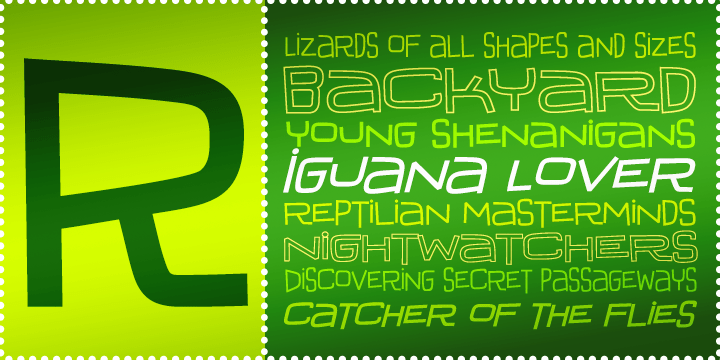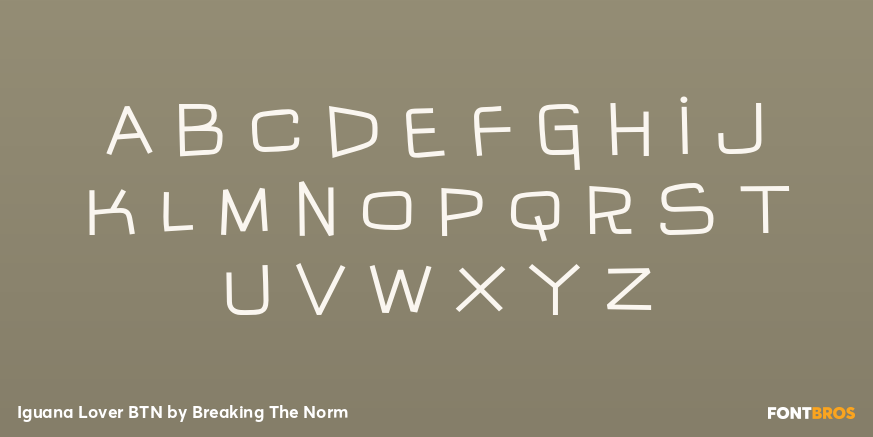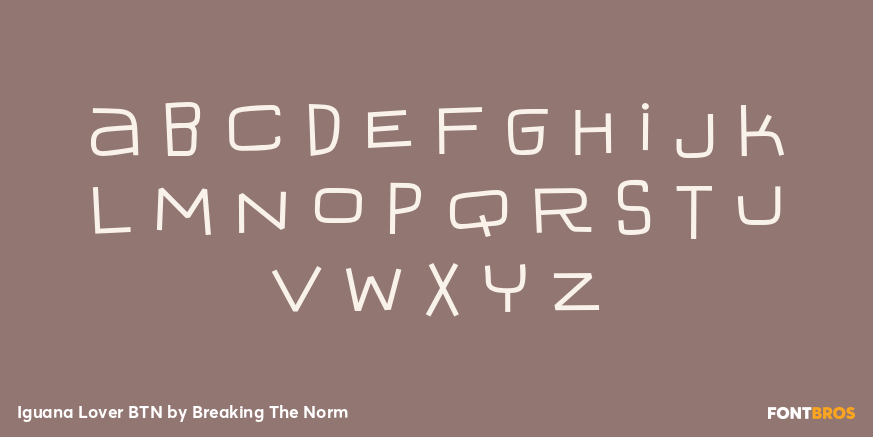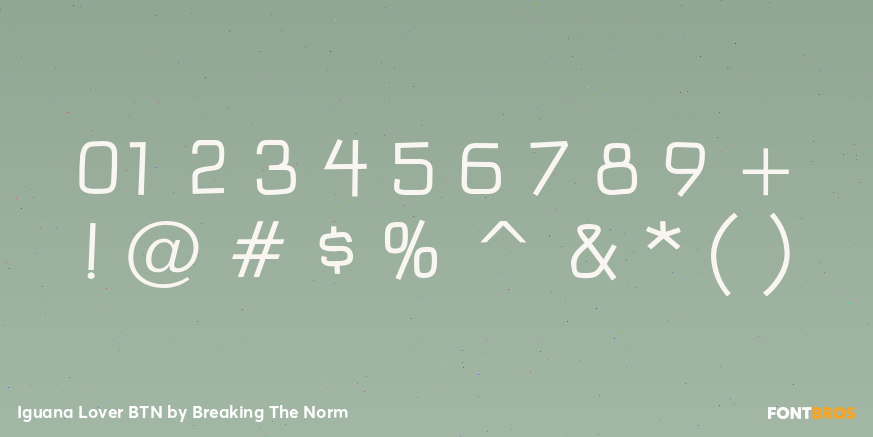
Iguana Lover BTN
Font Family by Breaking The Norm
Iguana Lover BTN is an offbeat retro display family inspired by the lettering from Night of the Iguana movie posters. It takes that unusual vintage flavor and expands it into a broader typographic system with narrow, standard, and wide-leaning styles that give designers more range to play with. The result is a quirky, character-rich family that feels both nostalgic and lively, making it well suited for posters, packaging, branding, editorial design, book covers, and playful headline work. With upright and oblique styles plus wide and condensed variations, Iguana Lover BTN offers a flexible retro voice with plenty of personality.